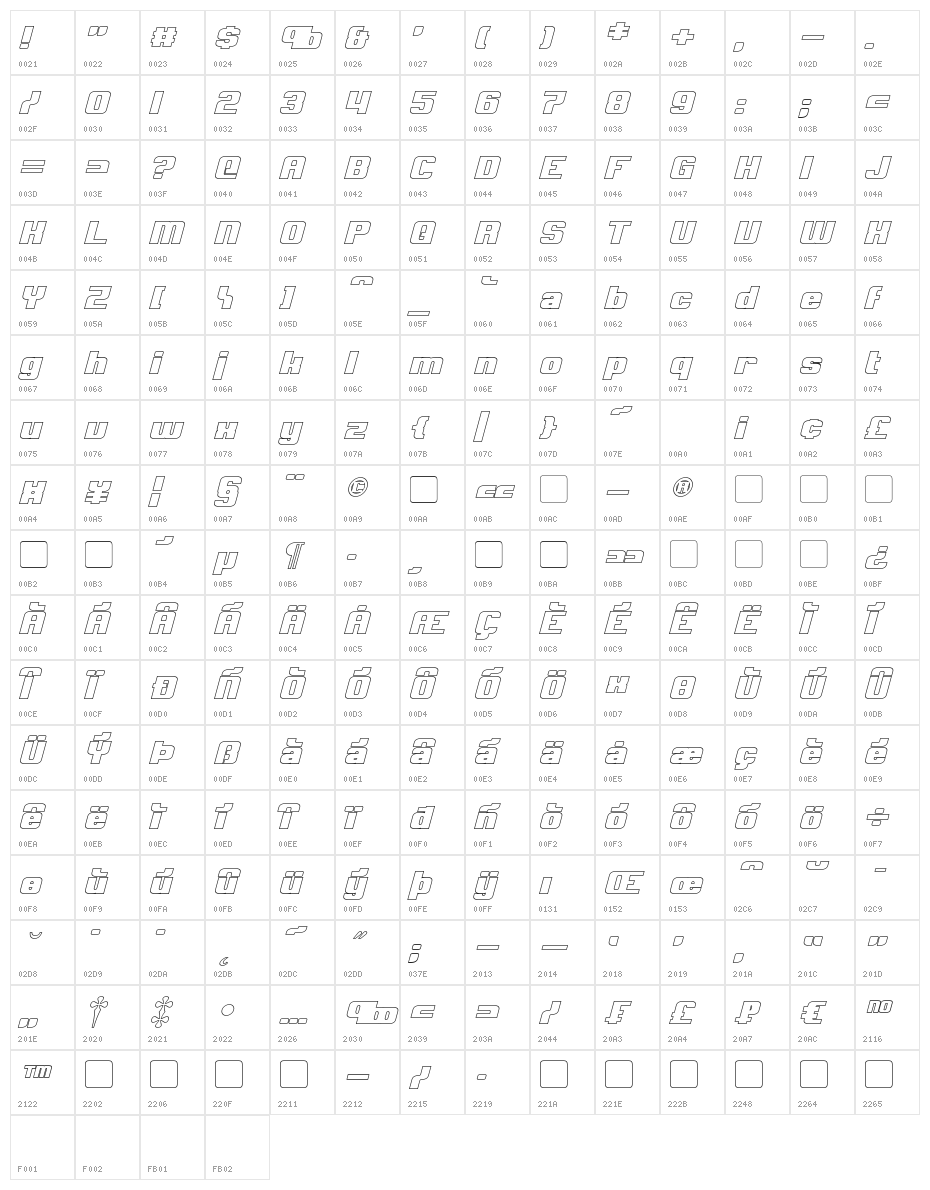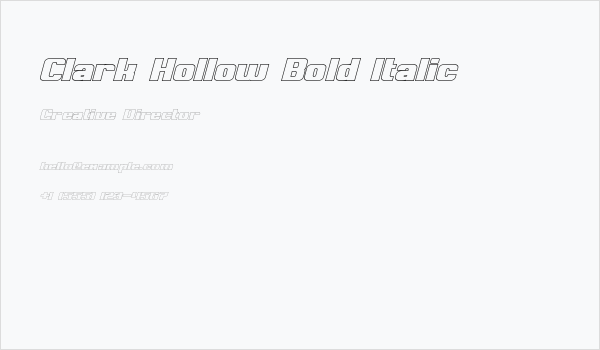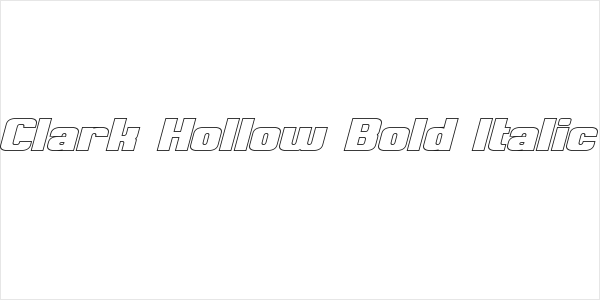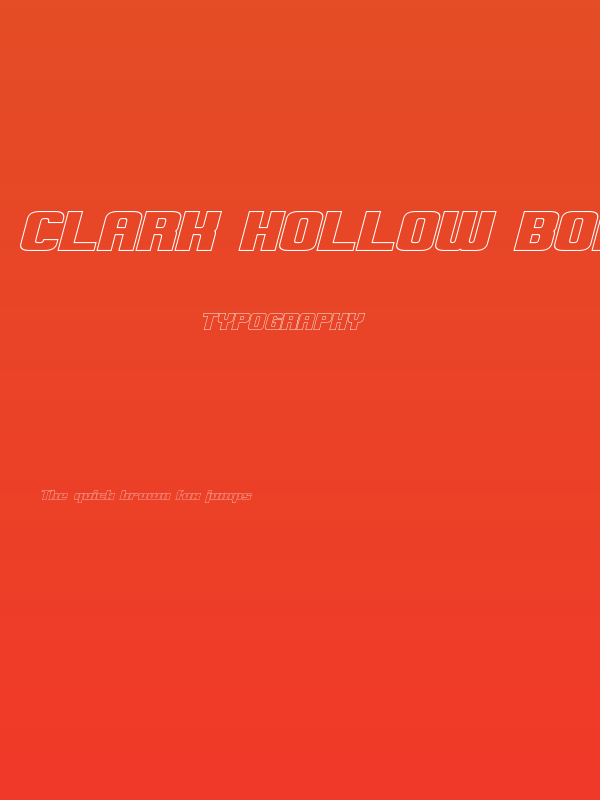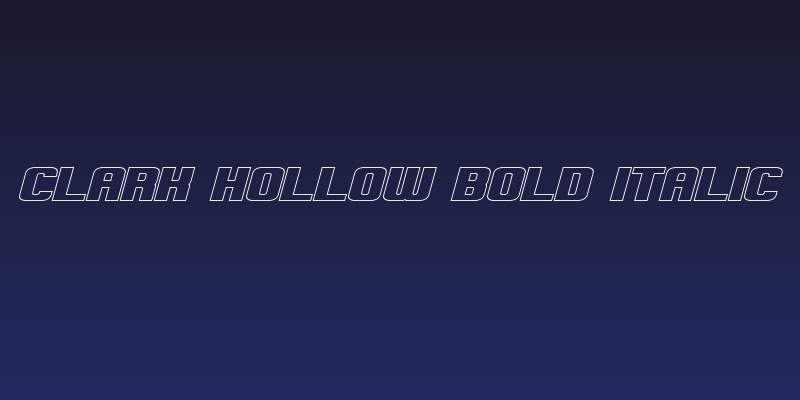
Clark Hollow Bold Italic Font
Clark Hollow Bold Italic Description
This font features a bold and italicized style with a hollow, outlined design that gives it a modern and dynamic appearance. The uppercase and lowercase letters maintain a consistent width, creating a uniform look across the alphabet. The numbers and special characters follow the same design principles, ensuring cohesion throughout. The font's boldness is balanced by its hollow nature, which adds a sense of lightness and openness. The italic slant adds a sense of motion and energy, making it suitable for projects that require a contemporary and eye-catching typeface.